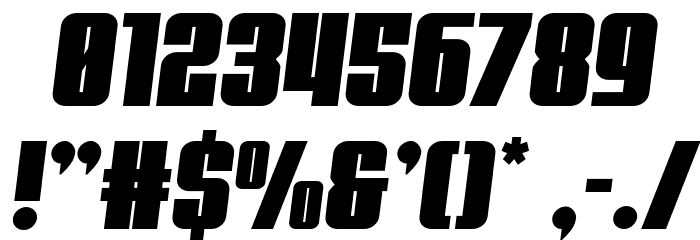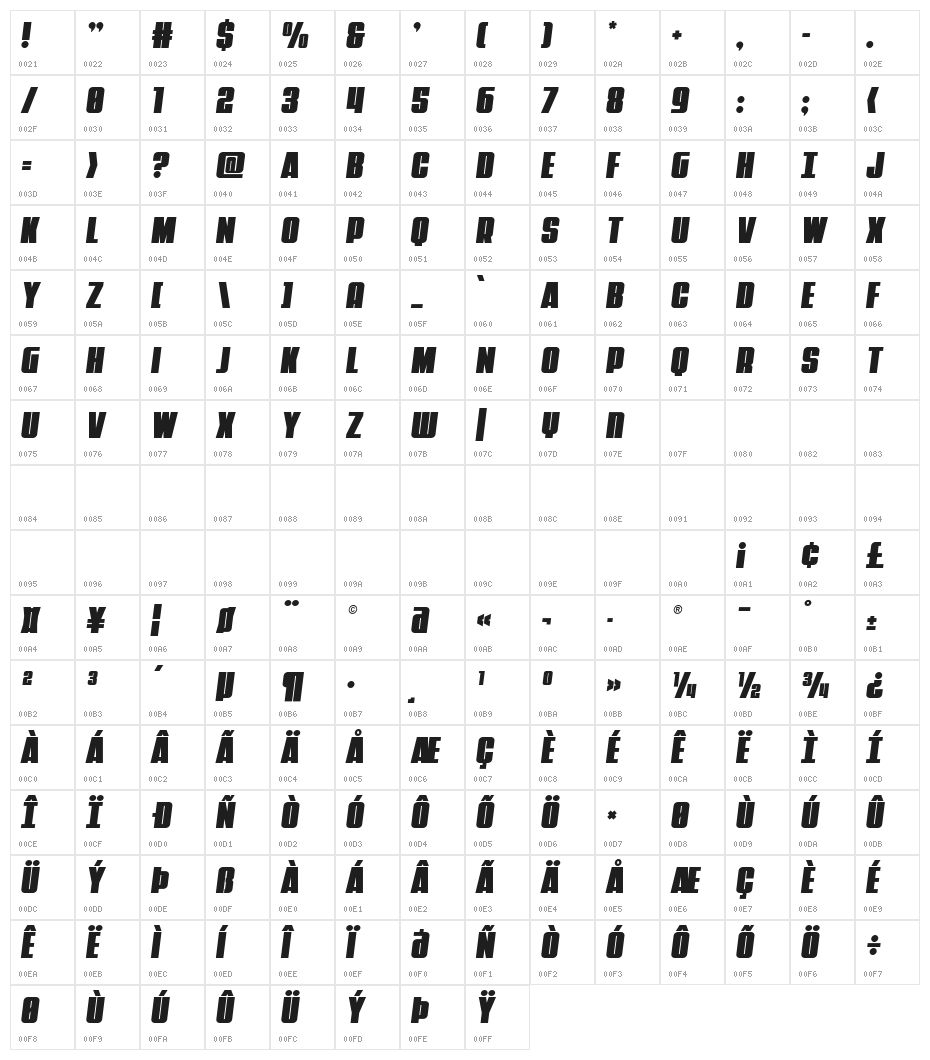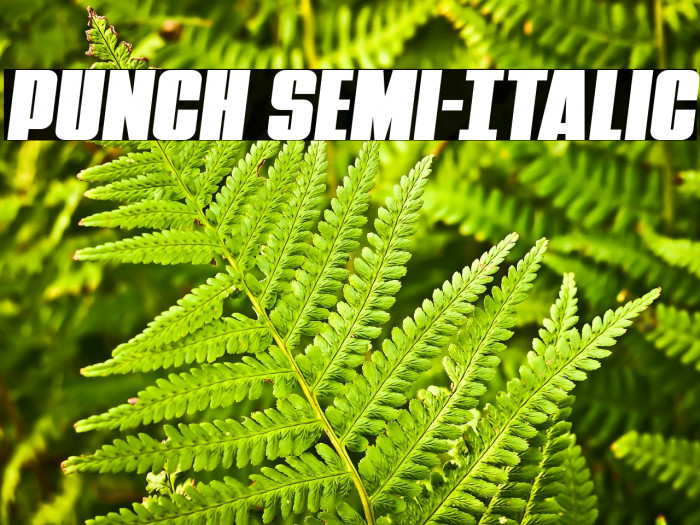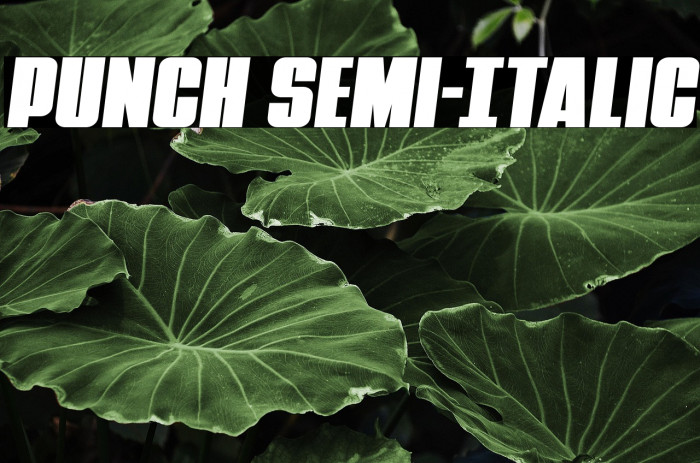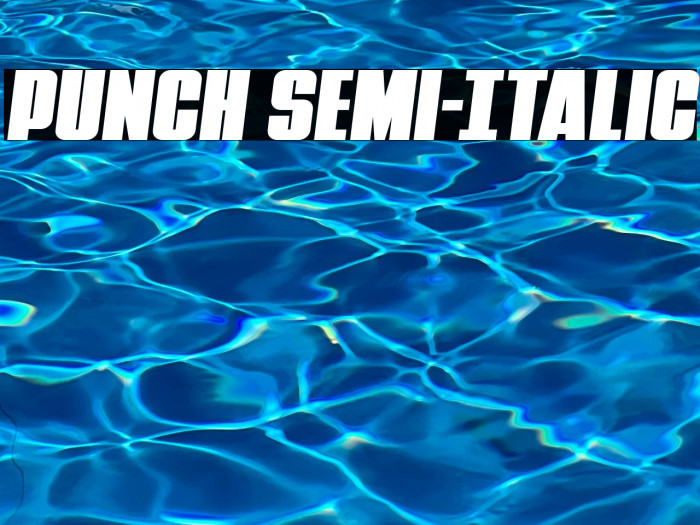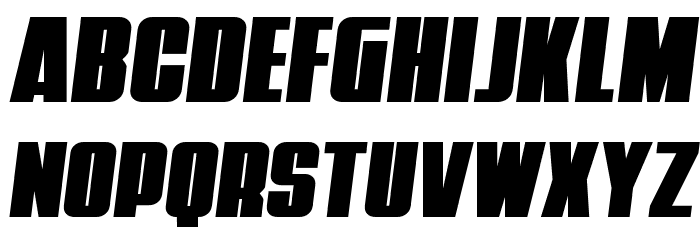
Punch Semi-Italic Font
Punch Semi-Italic Description
This font features a bold and dynamic style with a strong presence. The characters are slightly italicized, giving them a forward-leaning appearance that suggests movement and energy. The strokes are thick and consistent, contributing to a robust and impactful look. The uppercase letters are prominent and commanding, while the lowercase letters maintain a similar weight and style, ensuring uniformity across text. Numbers and special characters are designed with the same boldness, making them stand out effectively. This font is ideal for creating attention-grabbing headlines and titles.